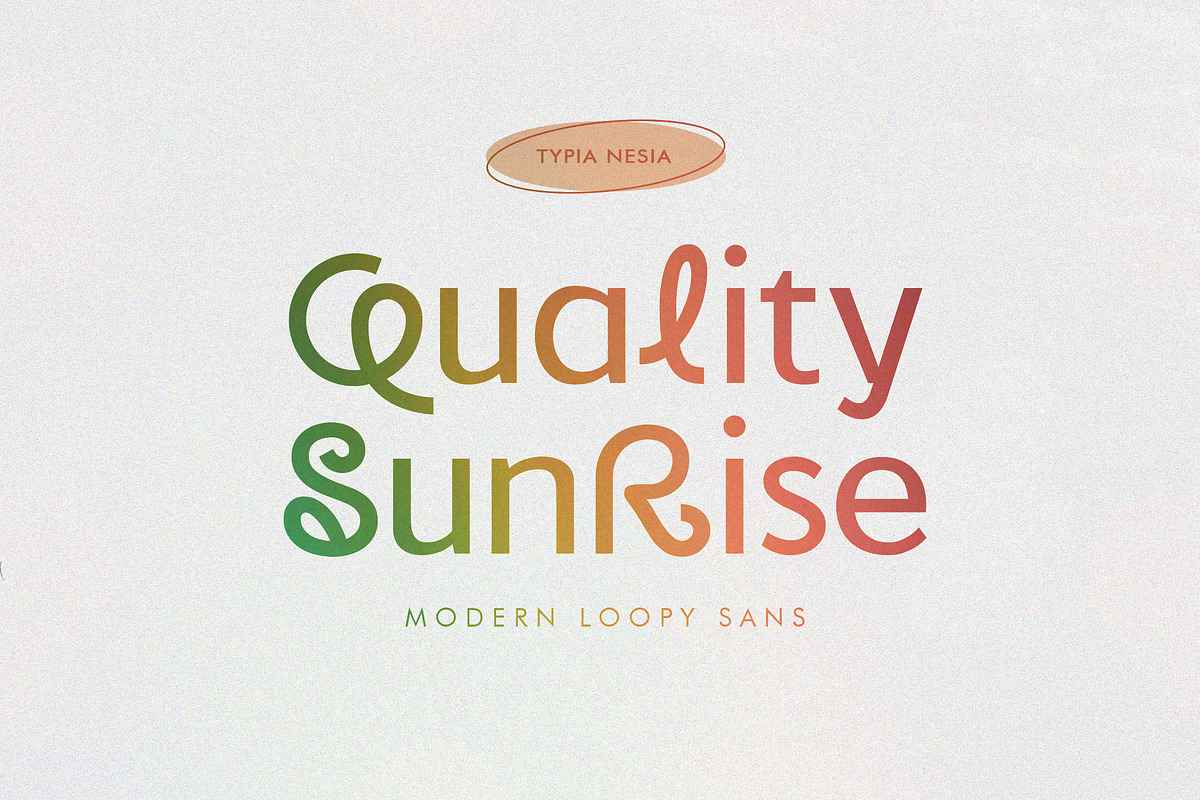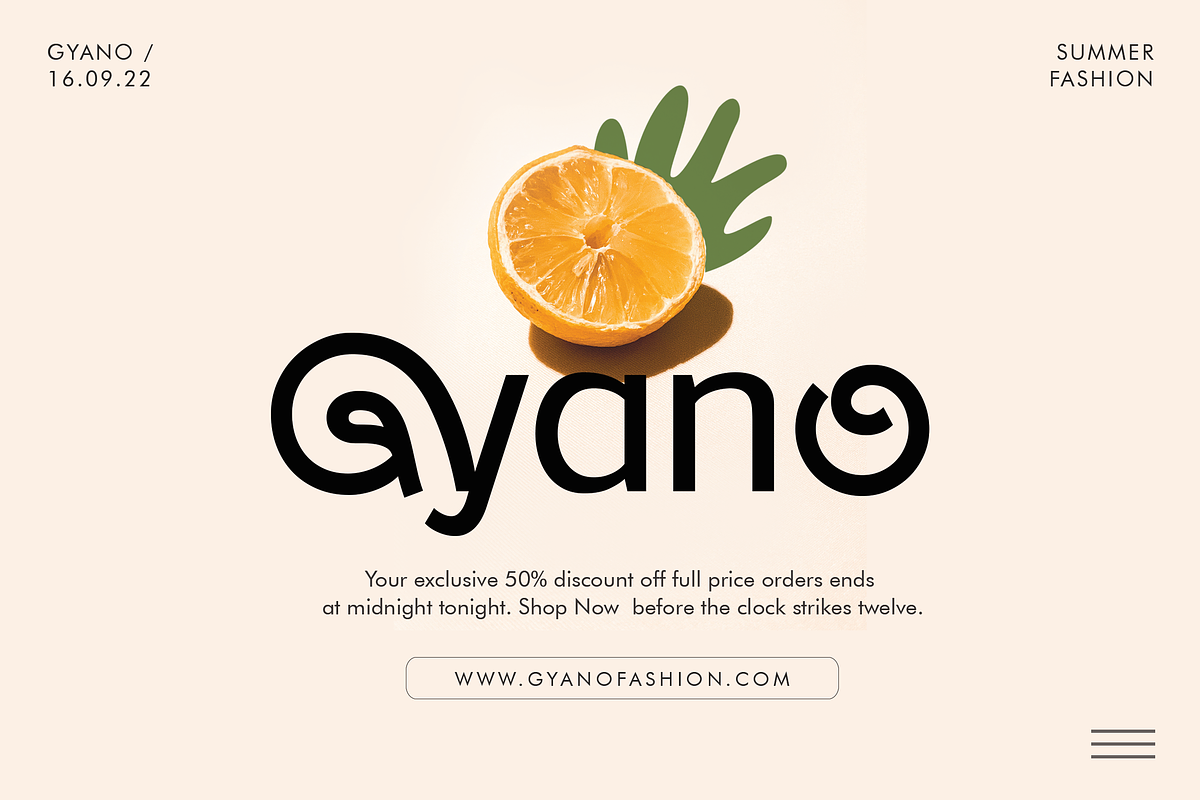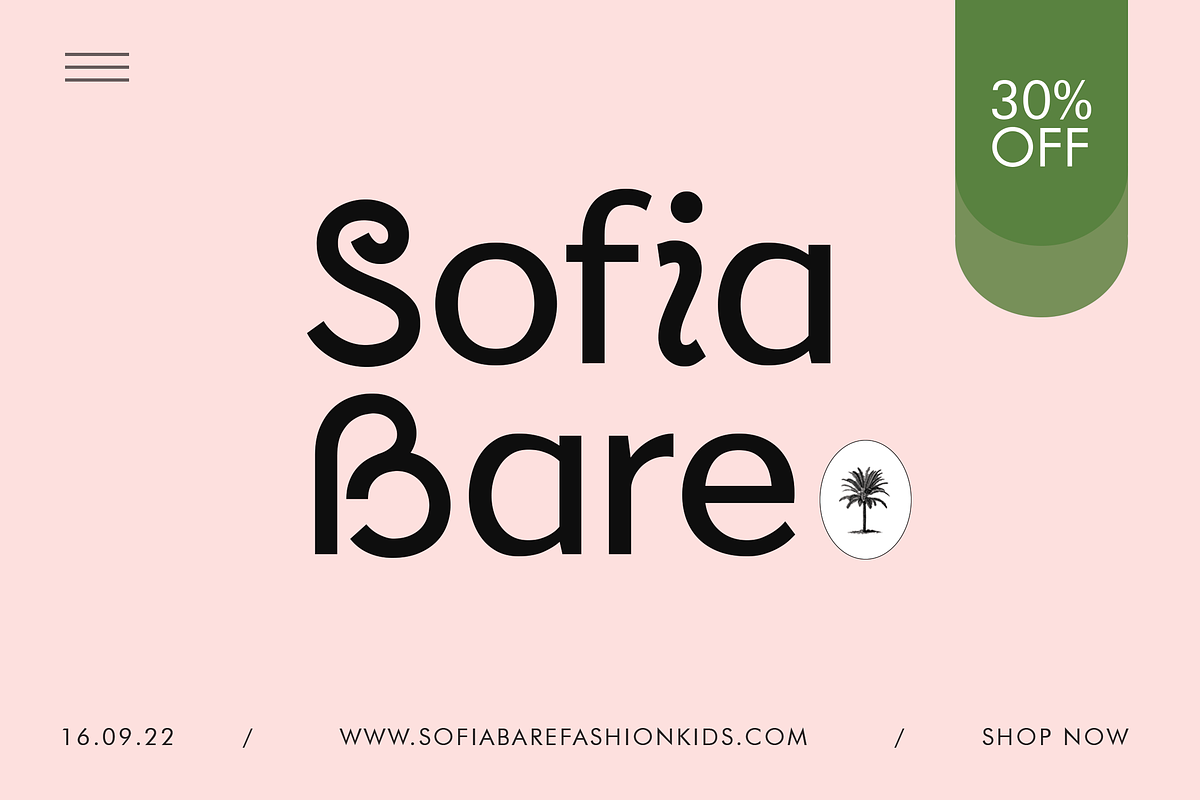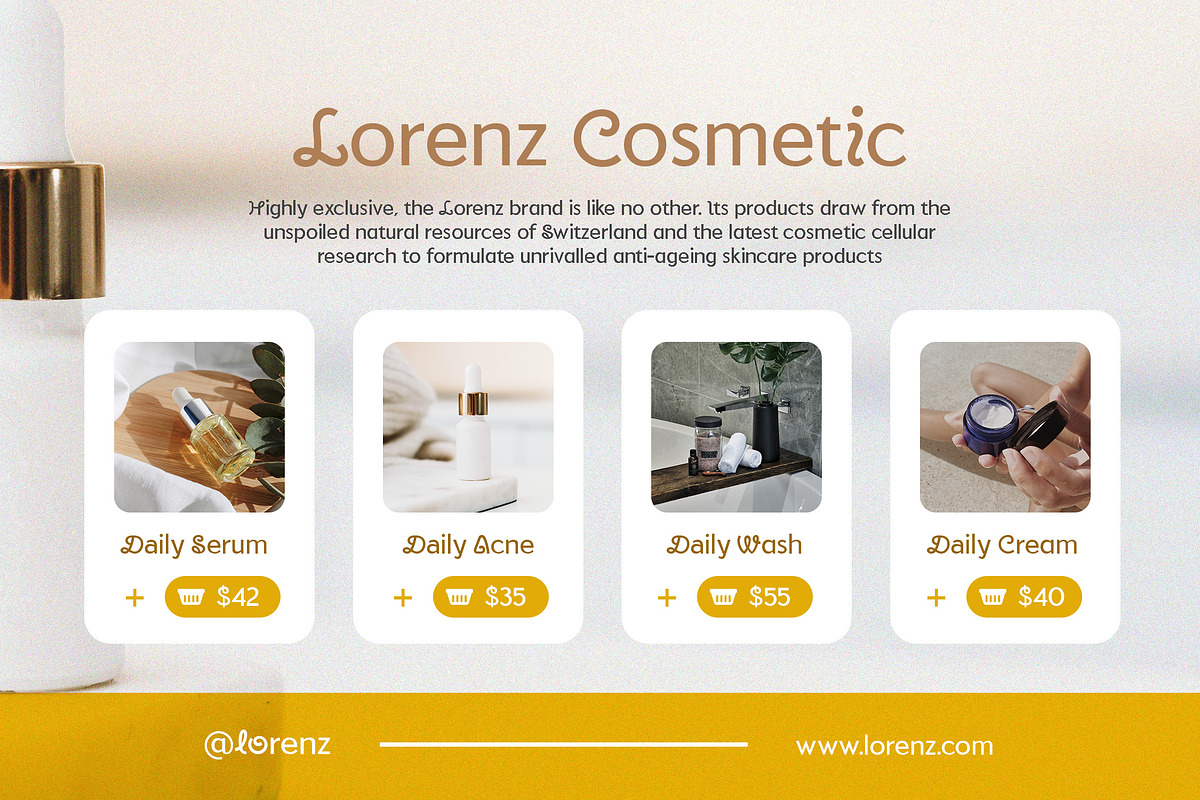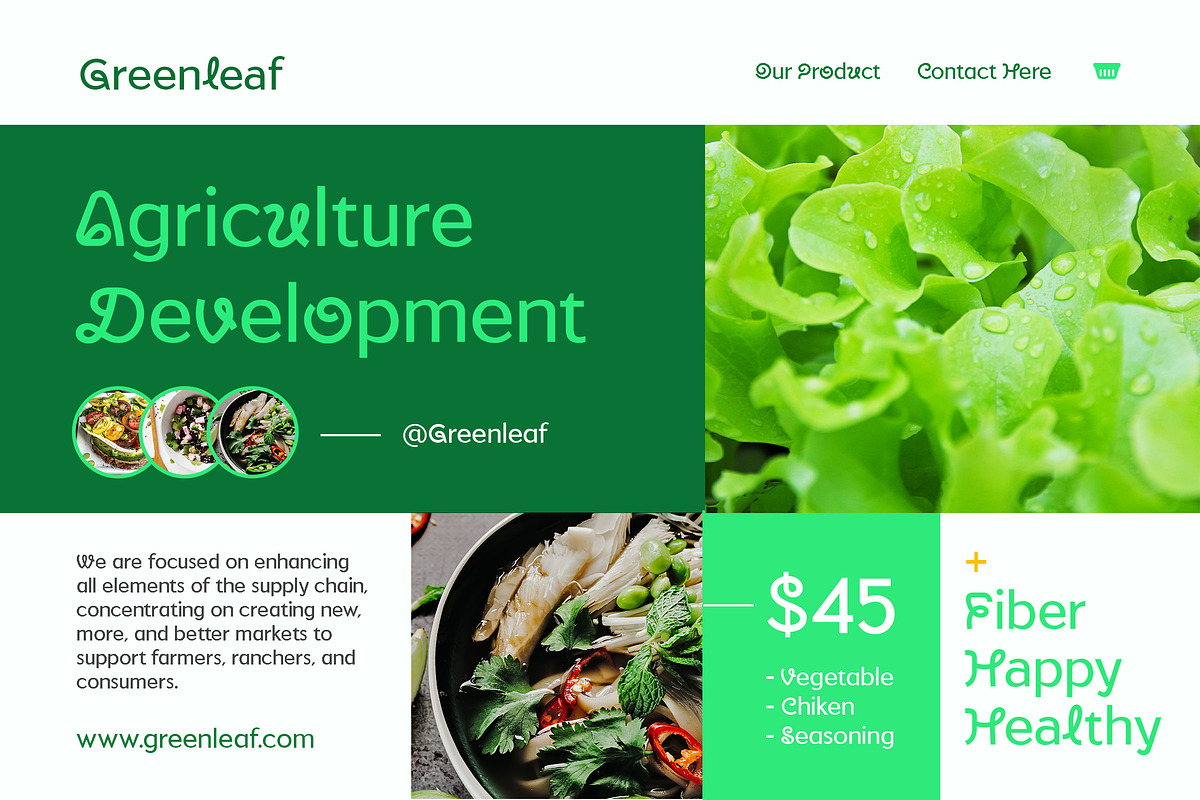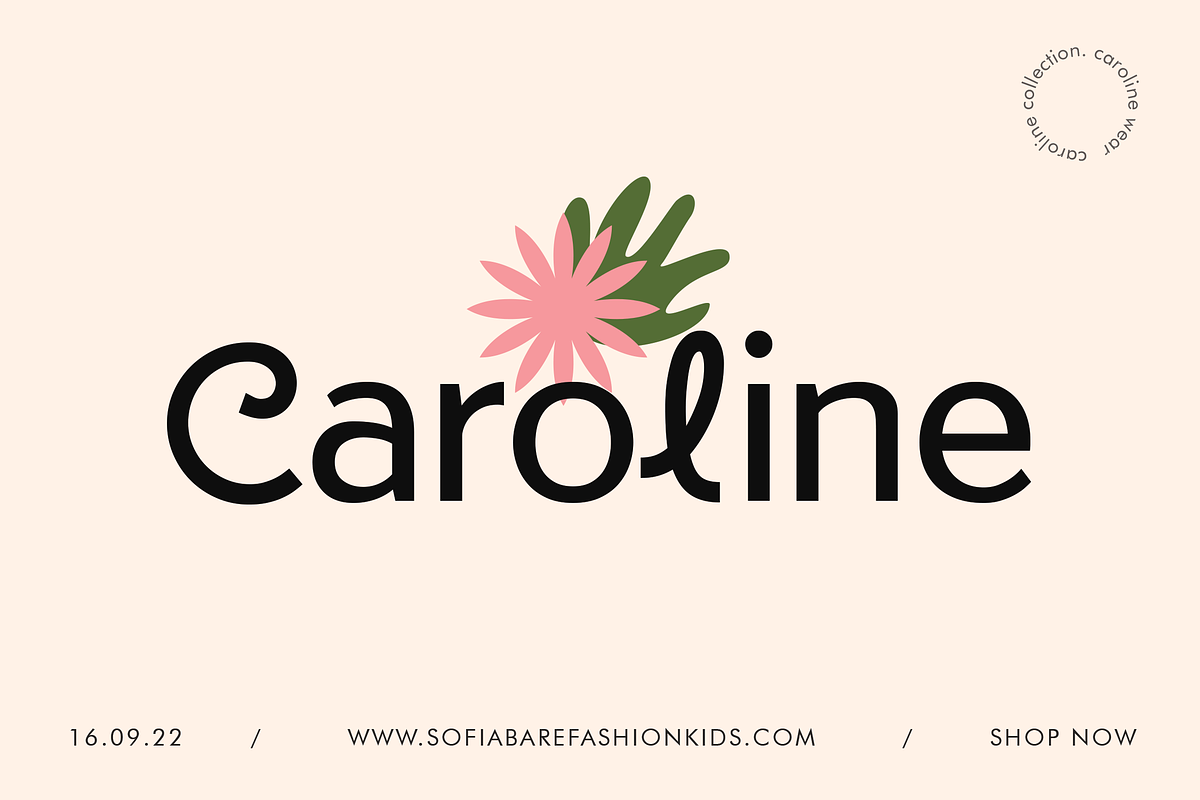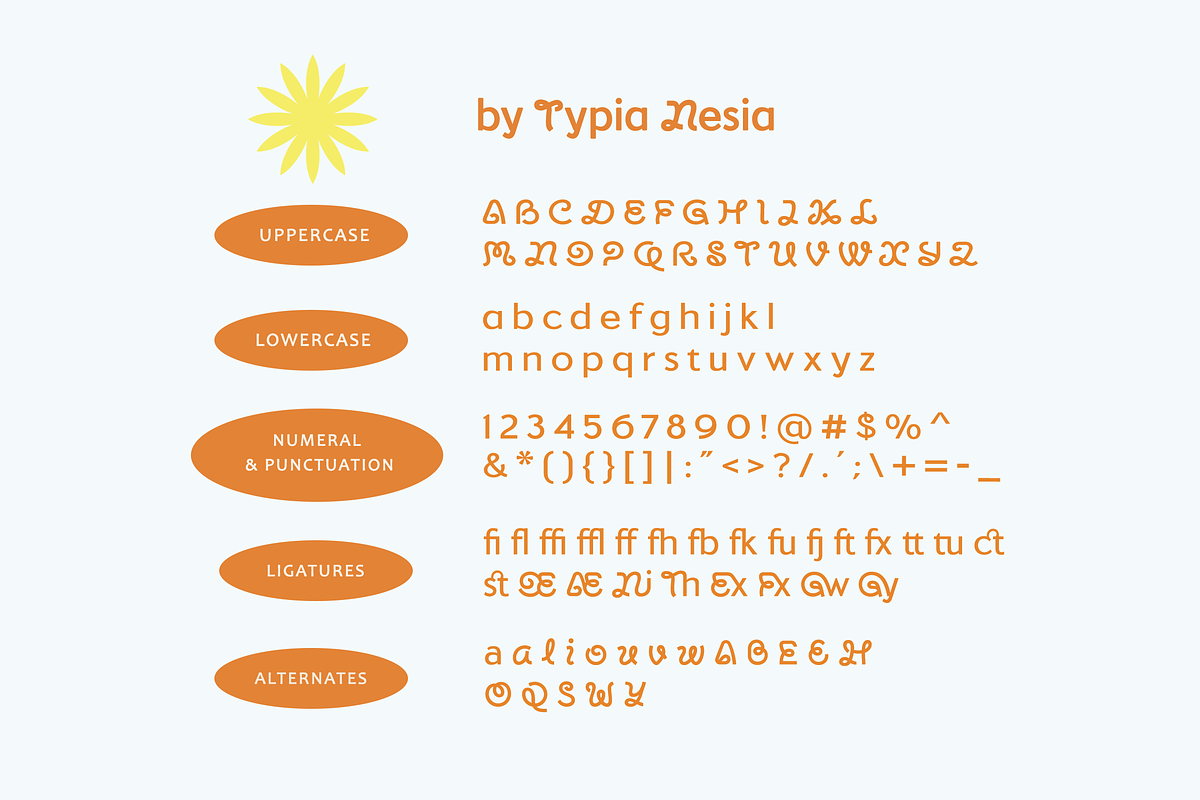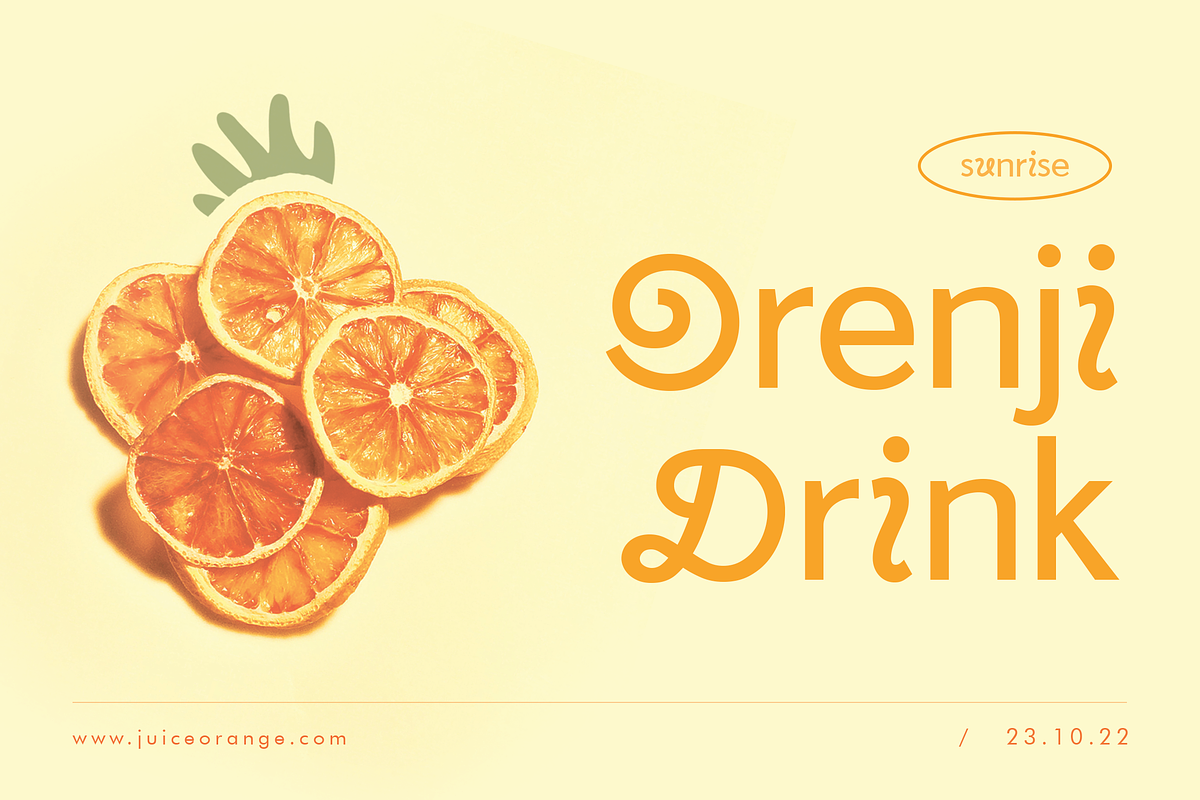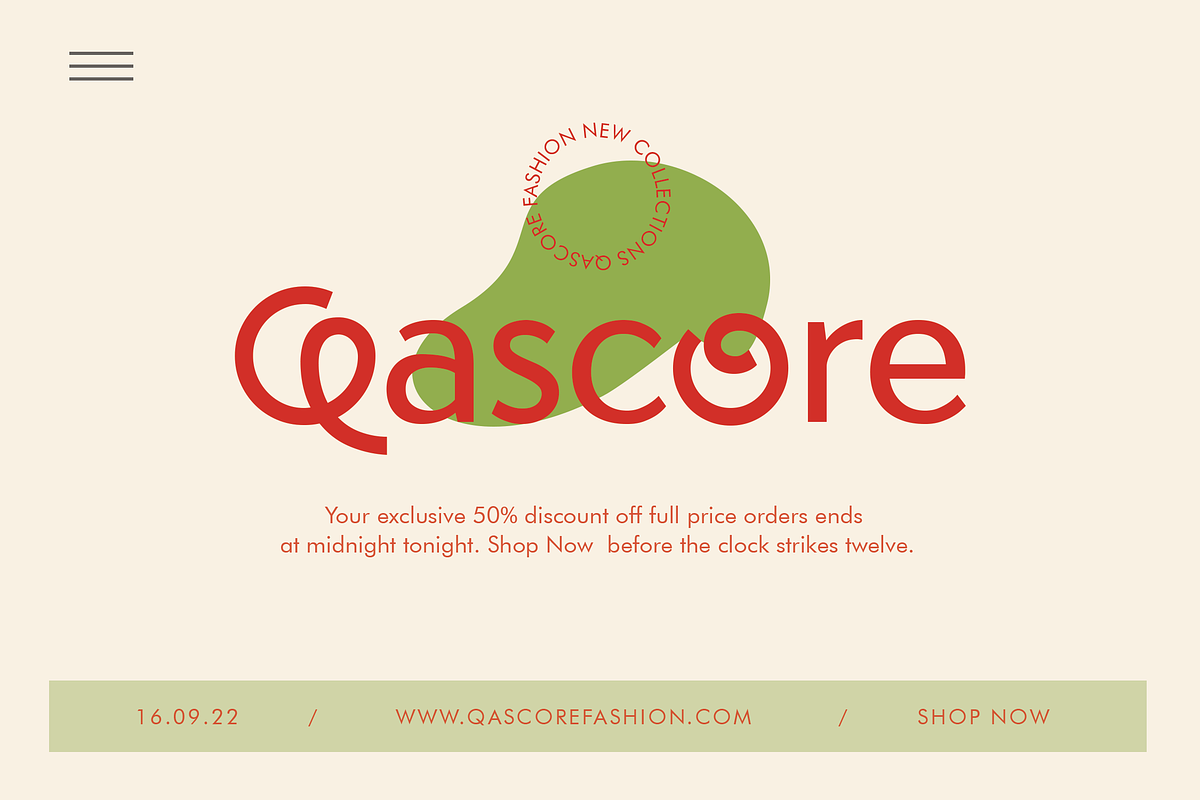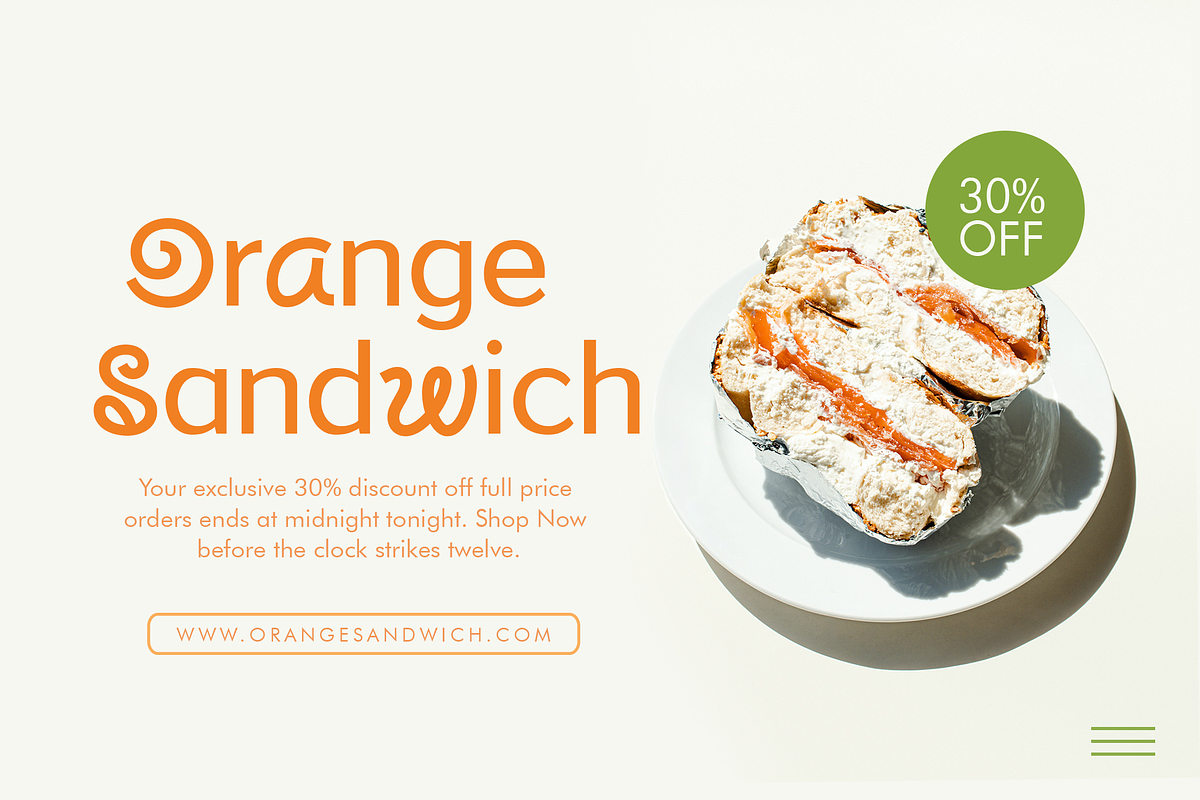
Quality Sunrise
Quality Sunrise - Modern Loopy Sans Serif Font - Fun Playful Logo Display Font
Quality Sunrise is perfect for your up coming projects. Such as logo branding, editorial design, stationery design, fun game design, unique techno / gadget brand, digital music poster, apps startup design, modern advertising design, art quote, home decor, book/cover title, special events and any more.